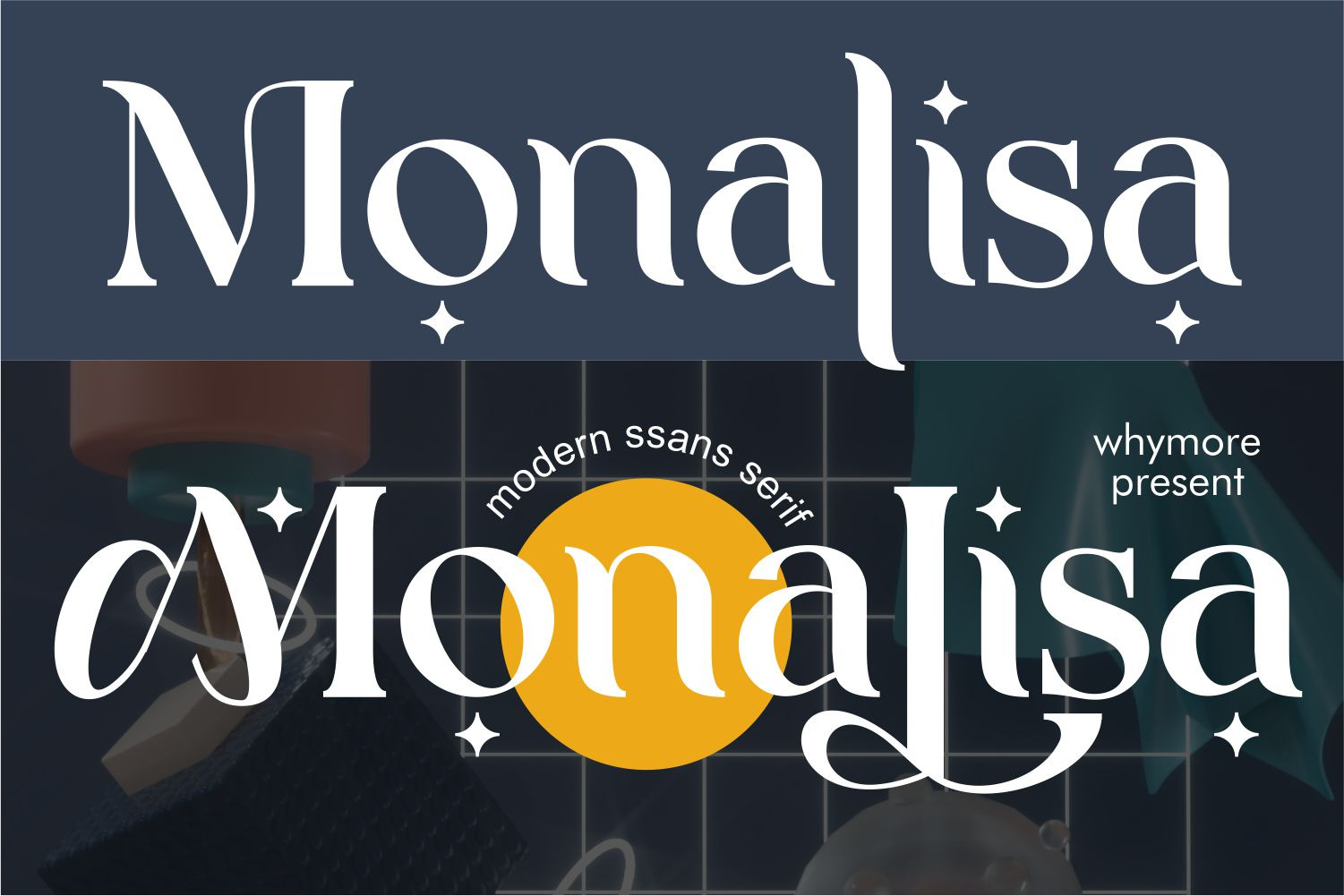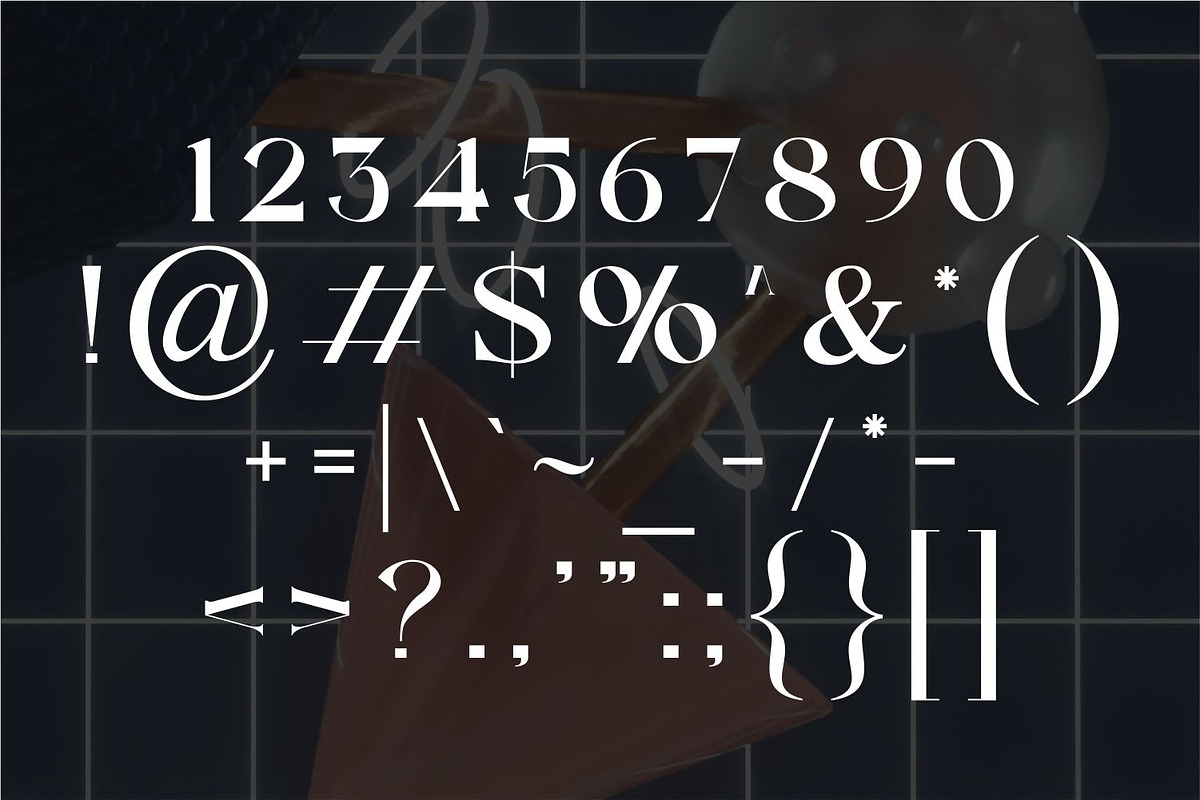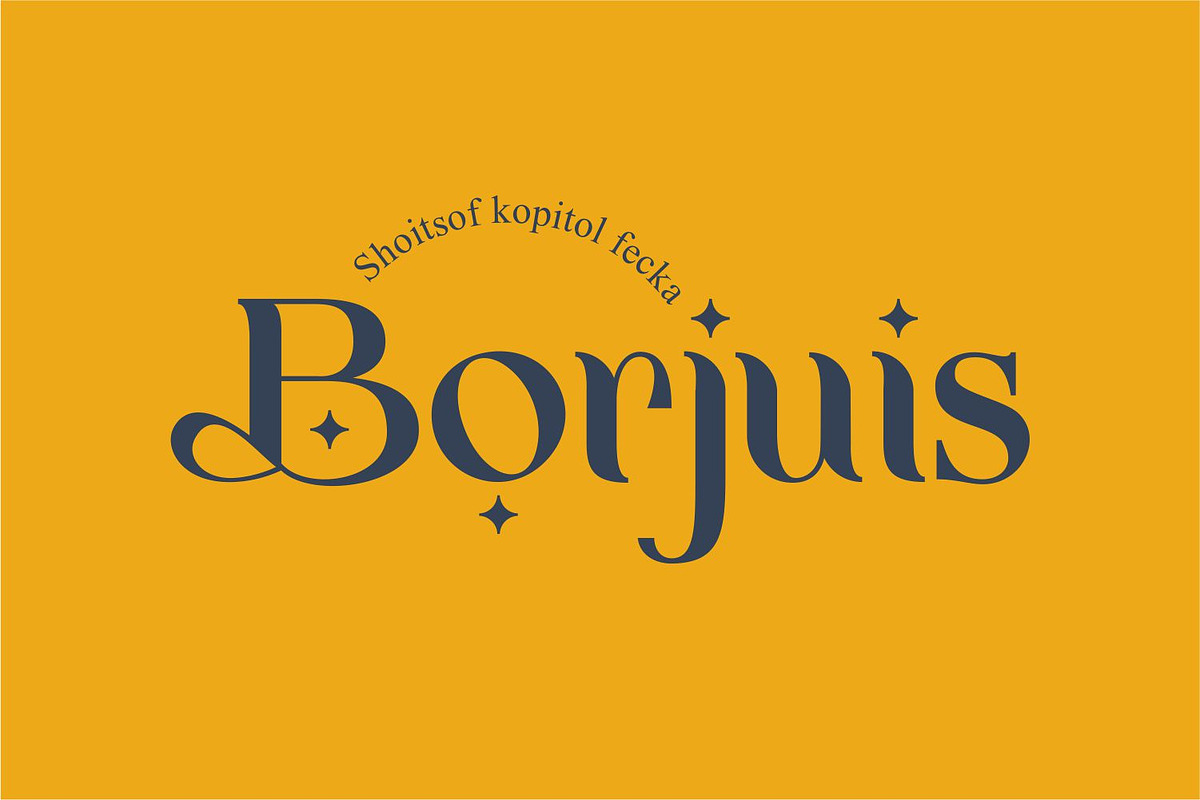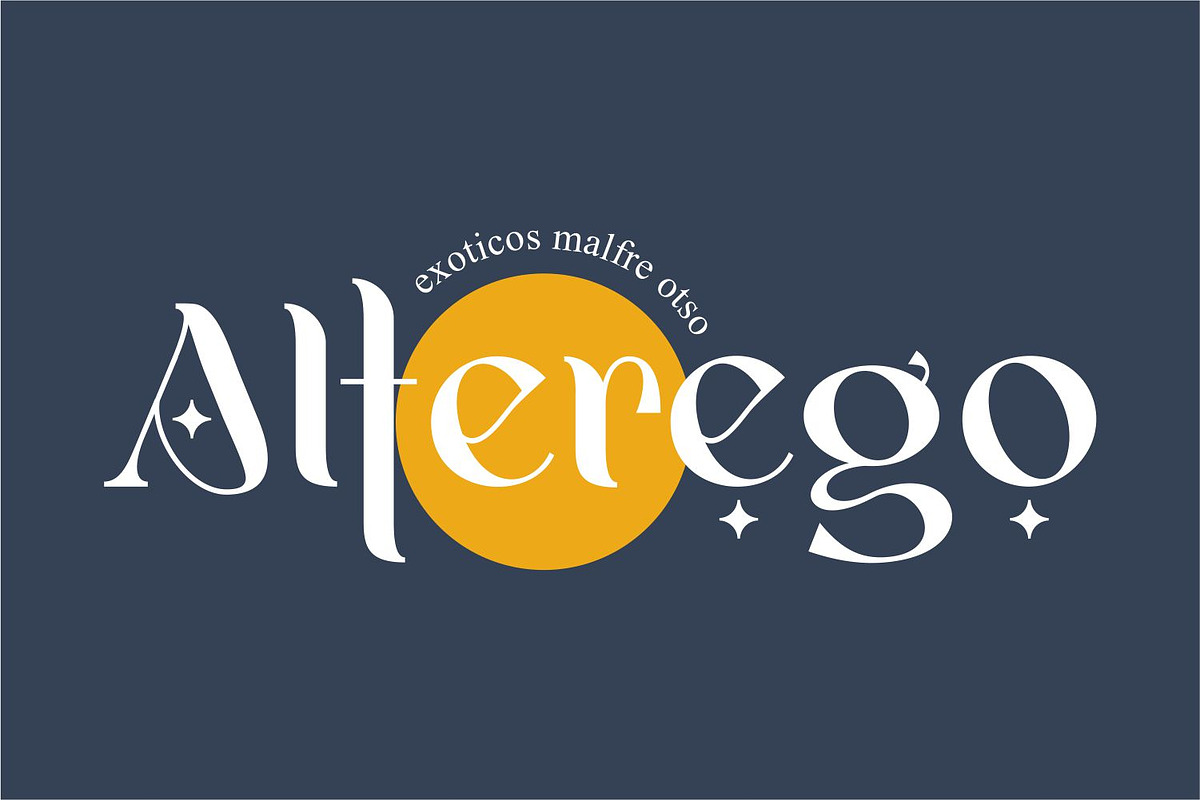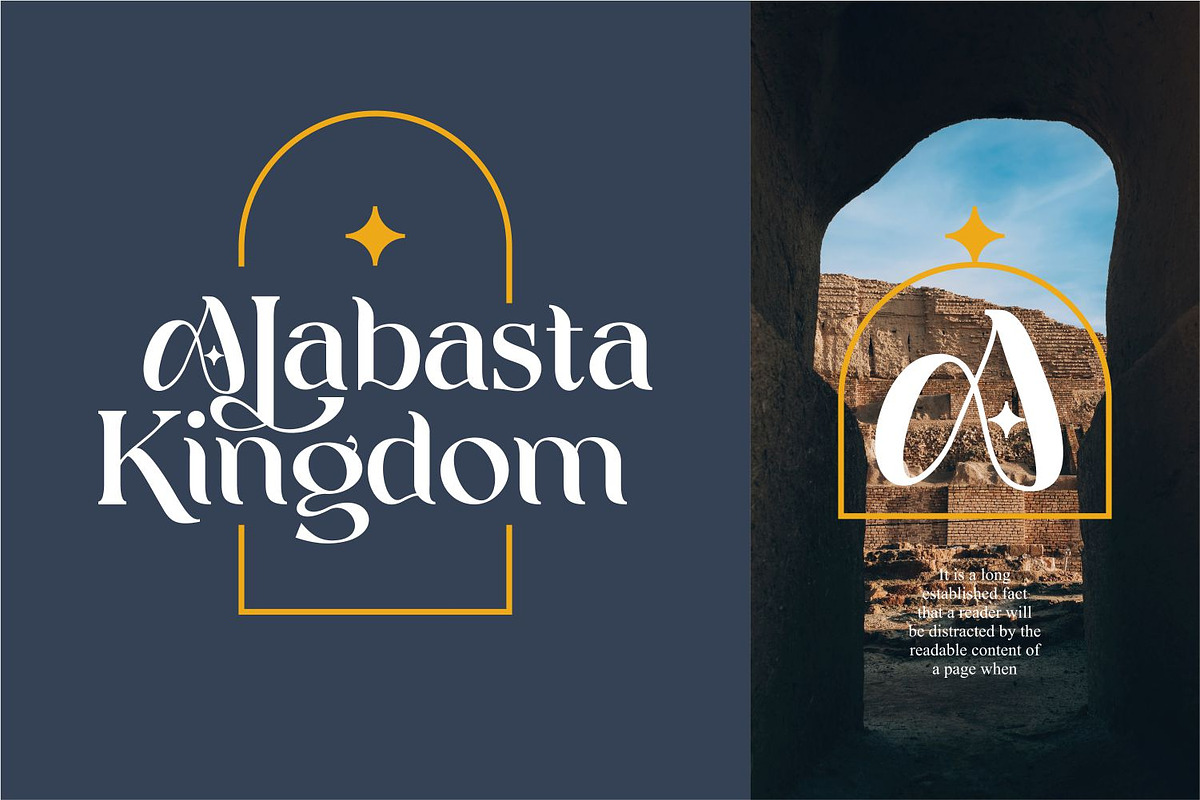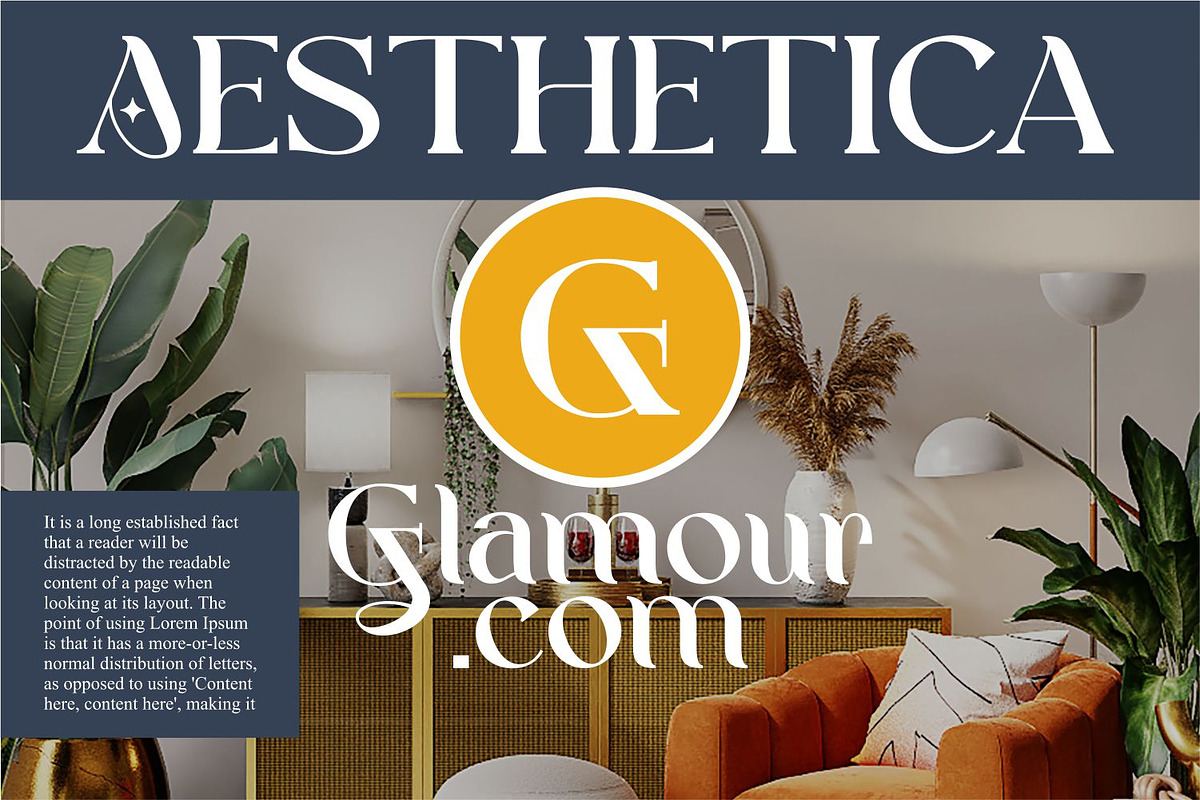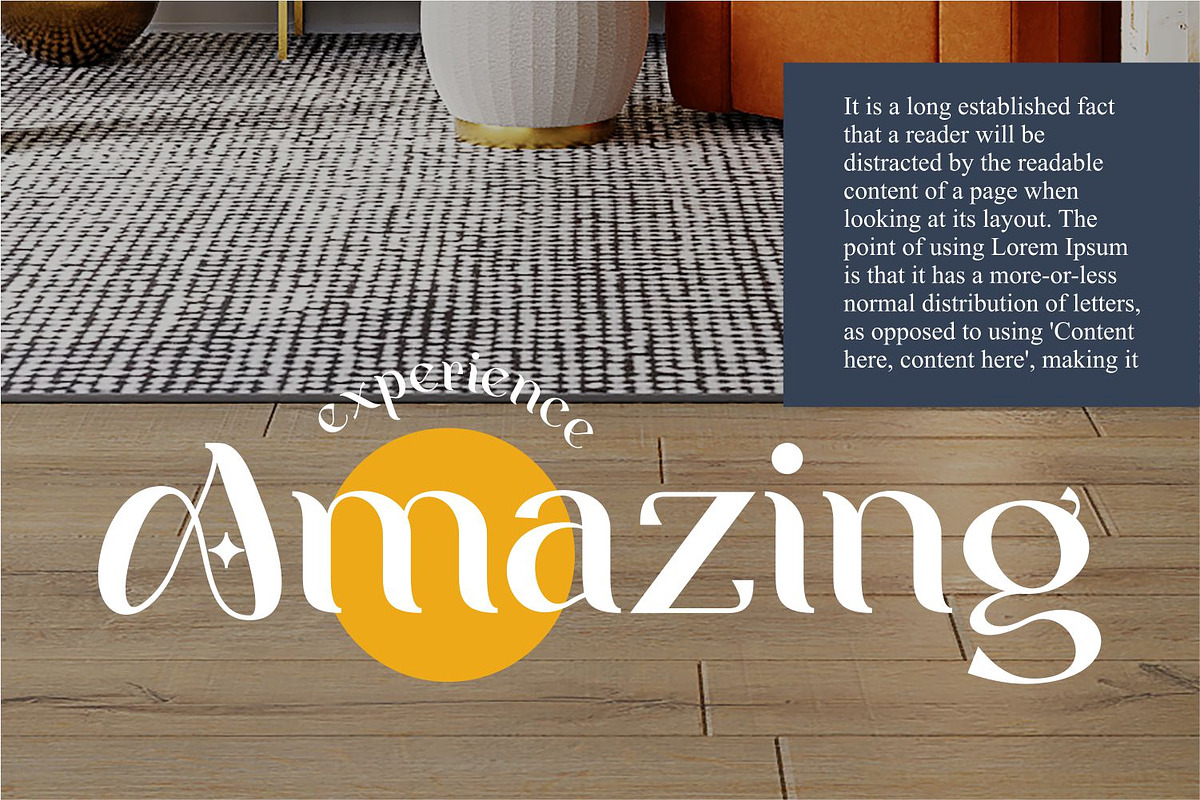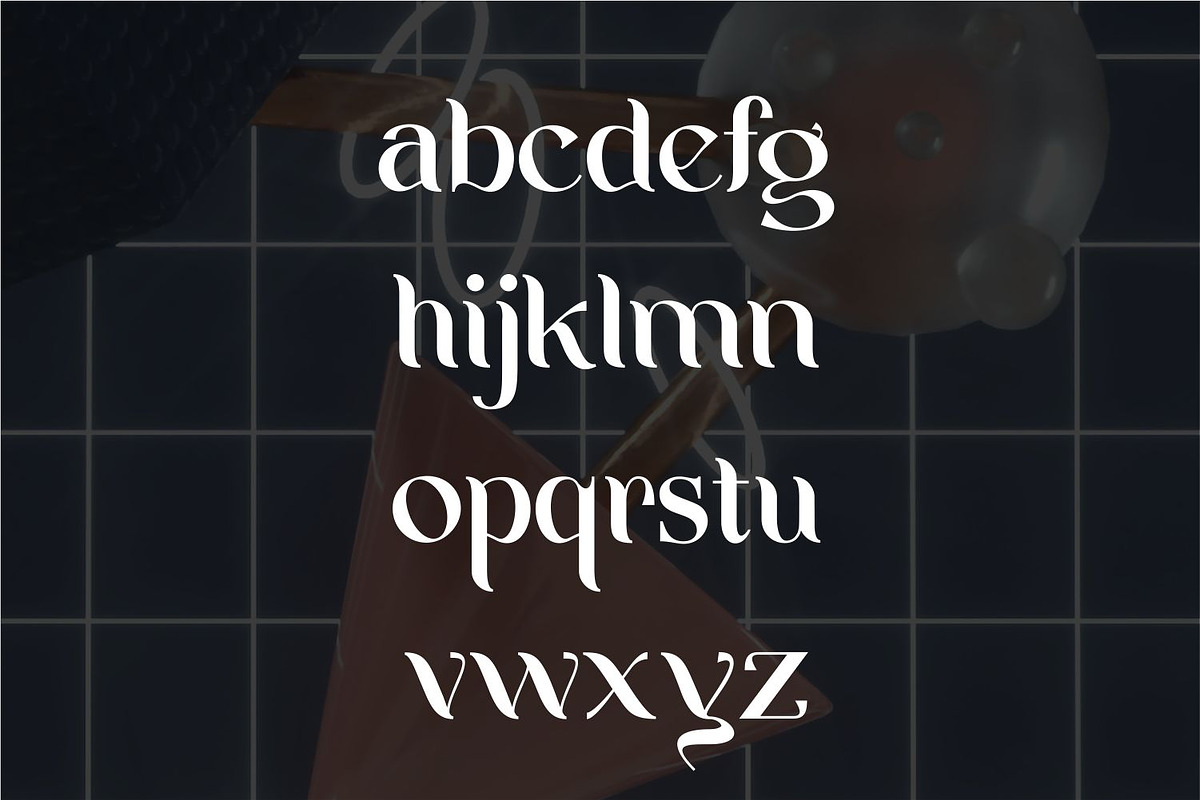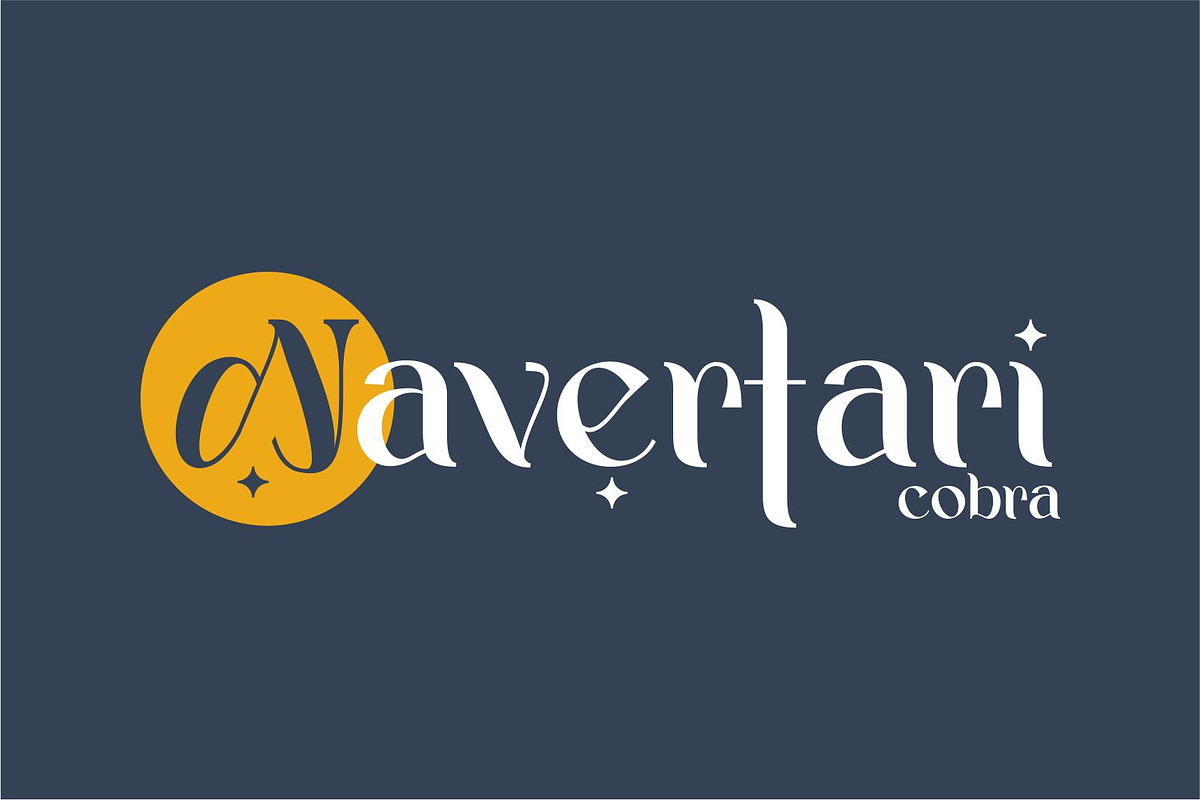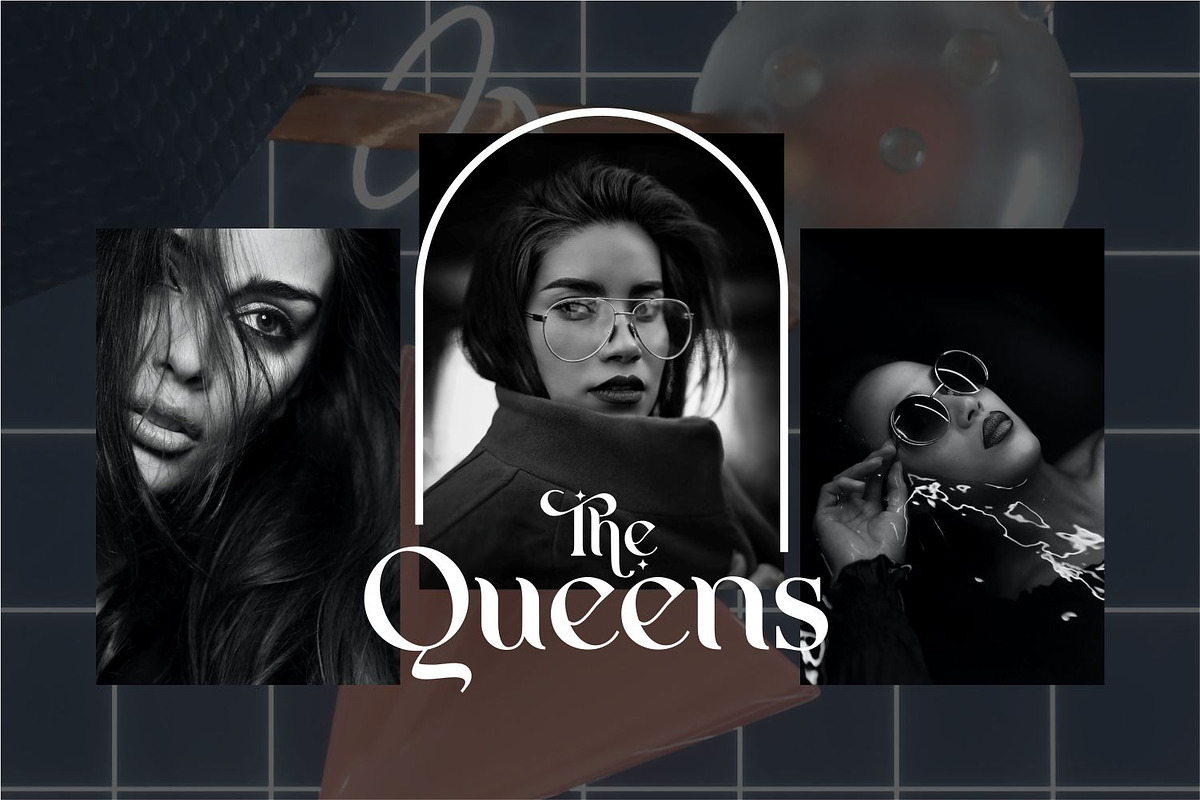
Monalisa Beautifull Bold Serif Font
The Monalisa Font is a stunning serif typeface that radiates elegance and timeless beauty in every character. With its graceful curves and refined details, this font adds a touch of sophistication to any design project. Whether you’re creating wedding invitations, branding materials, or editorial layouts, the Monalisa Font brings a sense of refined charm that captivates the viewer. Its versatile nature makes it suitable for both digital and print applications, ensuring your designs stand out with a touch of classical beauty.